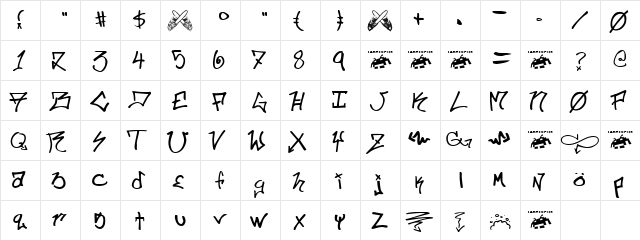
ill.skillz handstyle
| Style | handstyle |
| Foundry | xero harrison |
| Designer | xero harri5on |
Design Context for ill.skillz Typeface
ill.skillz flows with the natural rhythm of handwritten lettering, making it ideal for designs that call for warmth and personal expression.